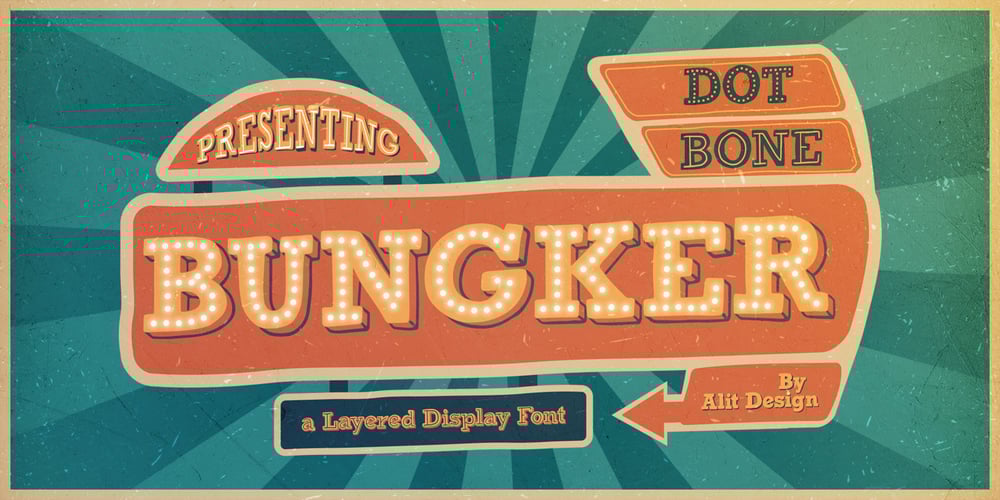
Bungker
Bungker font
Bungker Font Family was designed by Alit Suarnegara and published by Alit Design. Bungker contains 5 styles and family package options. The Bunker Typeface is inspired by the glamorous and cool nightlife in big cities. Designed with a retro sign concept, this font looks different and cool to use for making neon retro lettering designs. classic slab serif like “Bunker Typeface” are very easy to apply to any design, especially those with an retro and sign concept, apart from that this font is very easy to use in both design and non-design programs because all alternates and glyphs are supported by Unicode (PUA).